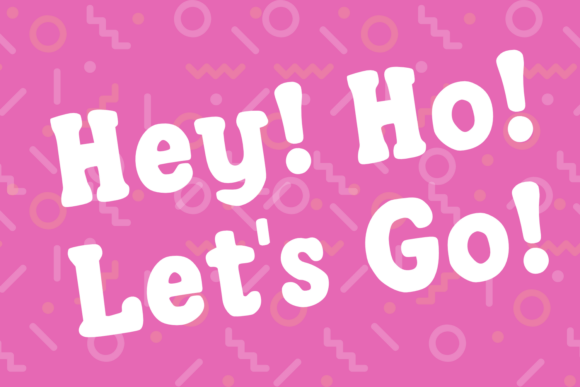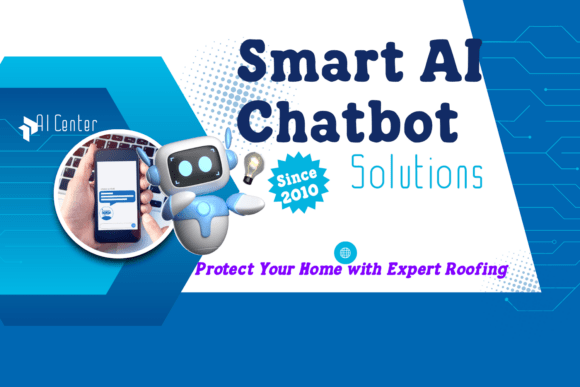
Introduction to Murisaramy Regular Font
The Murisa Ramy Font is a playful and bold typeface that instantly captures attention with its rounded, bubbly letterforms and strong presence.
Its smooth curves and balanced proportions create a friendly yet confident look, blending softness with visual impact in a way that makes it stand out across both digital and print media The fontโs expressive personality allows it to shine in branding, packaging, social media graphics, posters, and childrenโs designs, where charm and readability go hand in hand.
Key Features of Murisaramy Regular Font
Why Choose Murisaramy Regular Font?
Murisaramy Regular Font offers exceptional quality and versatility, making it a valuable addition to your design toolkit. Whether you’re creating for personal projects or commercial use, Murisaramy Regular Font delivers professional results.